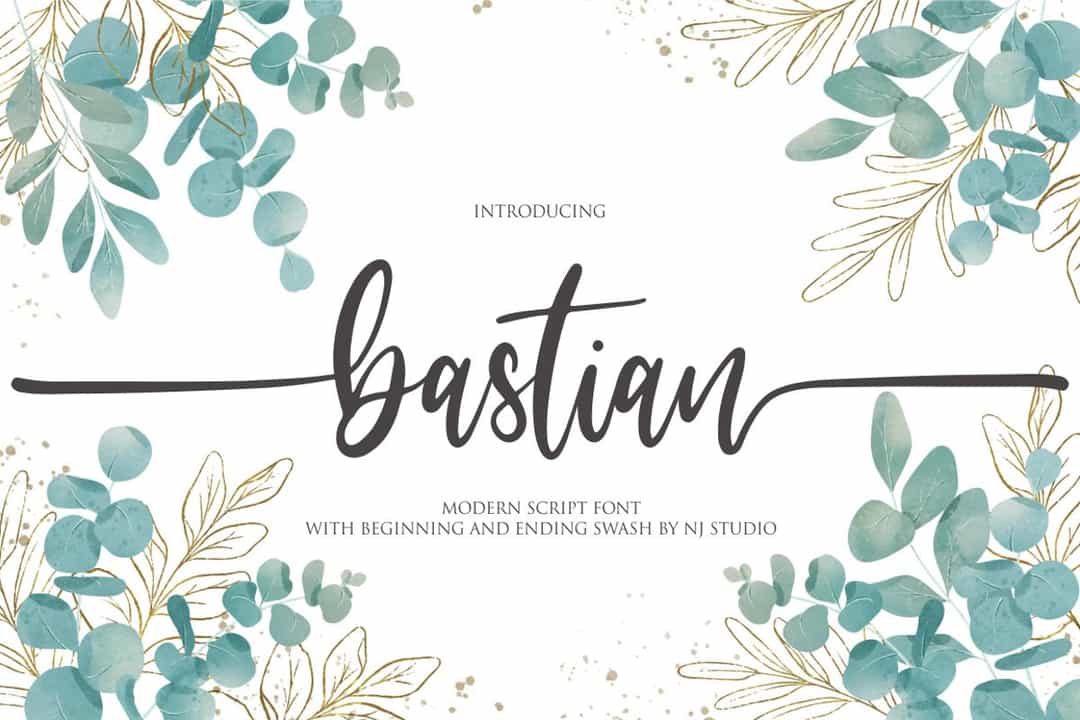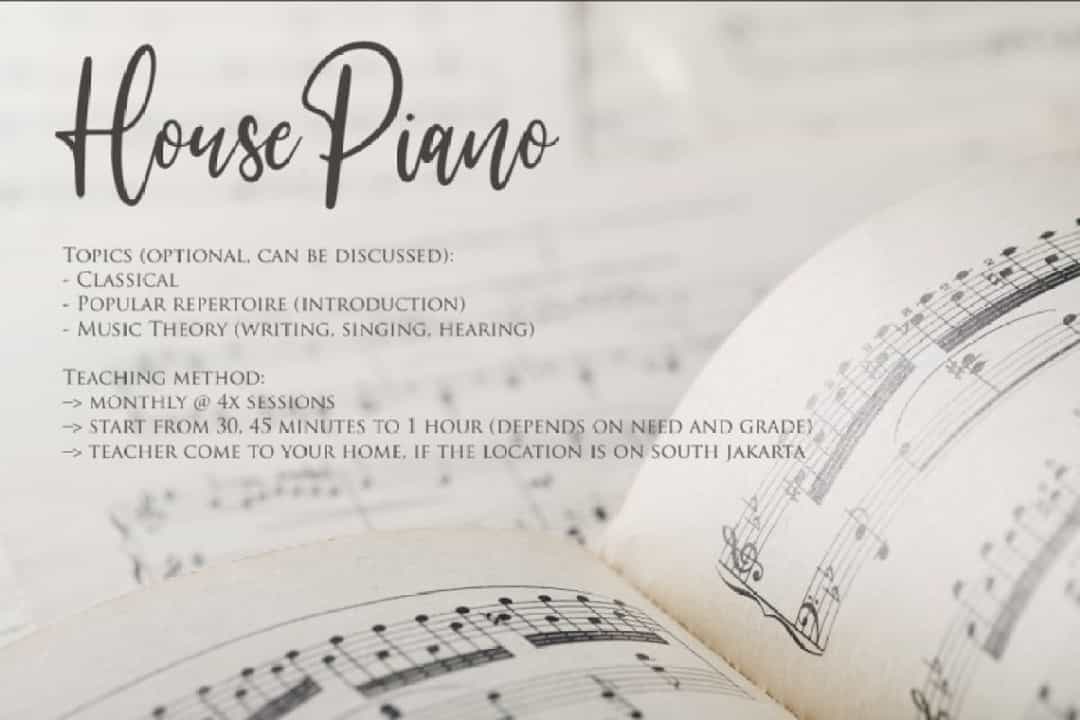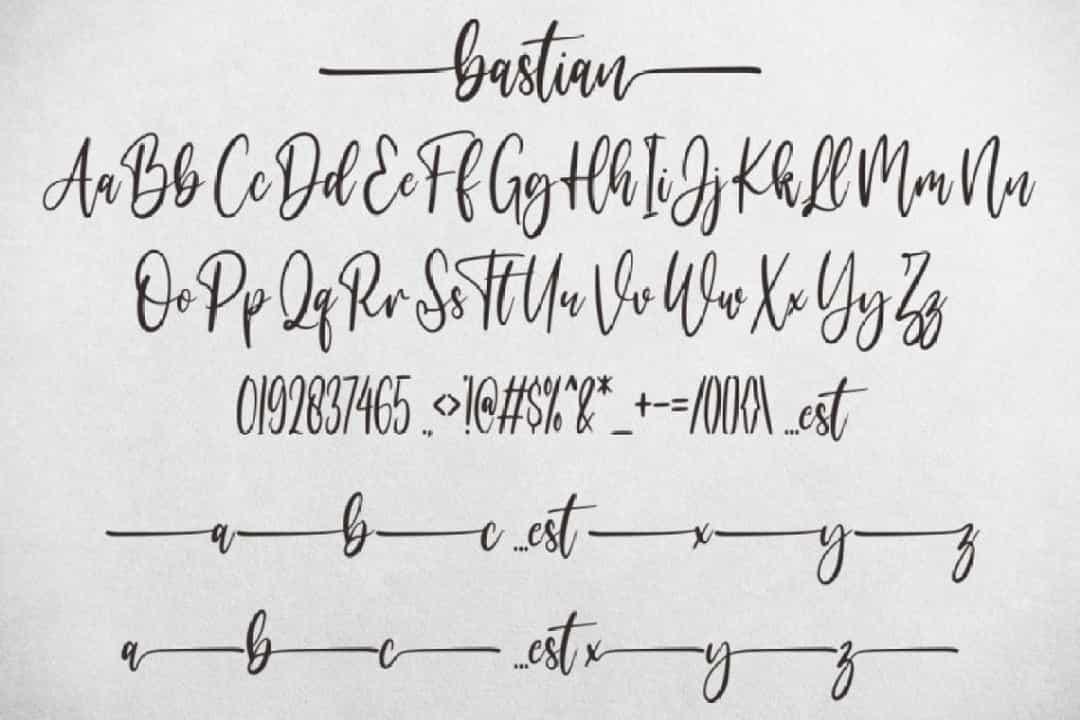
Bastlian is a beautiful light script font with elegant touch and amazing sense, give an elegant sparkle to any design you are working on! PUA encoded, this Font is an easy to use font with great characters and ligatures for users to access.